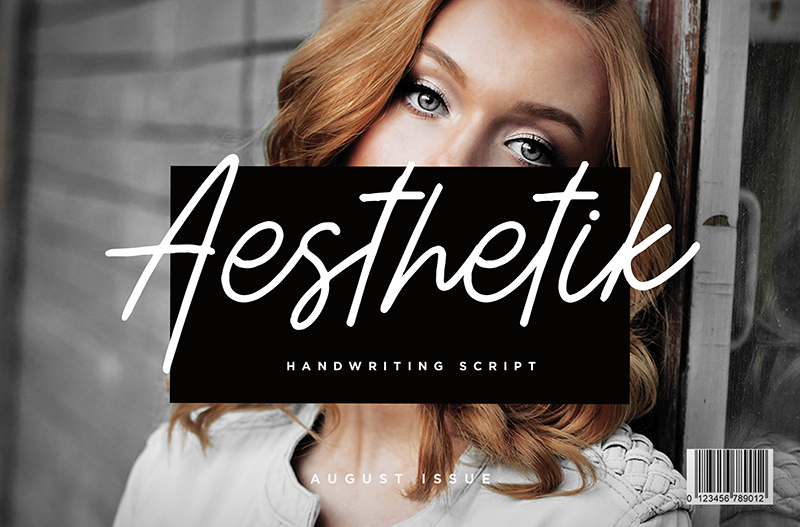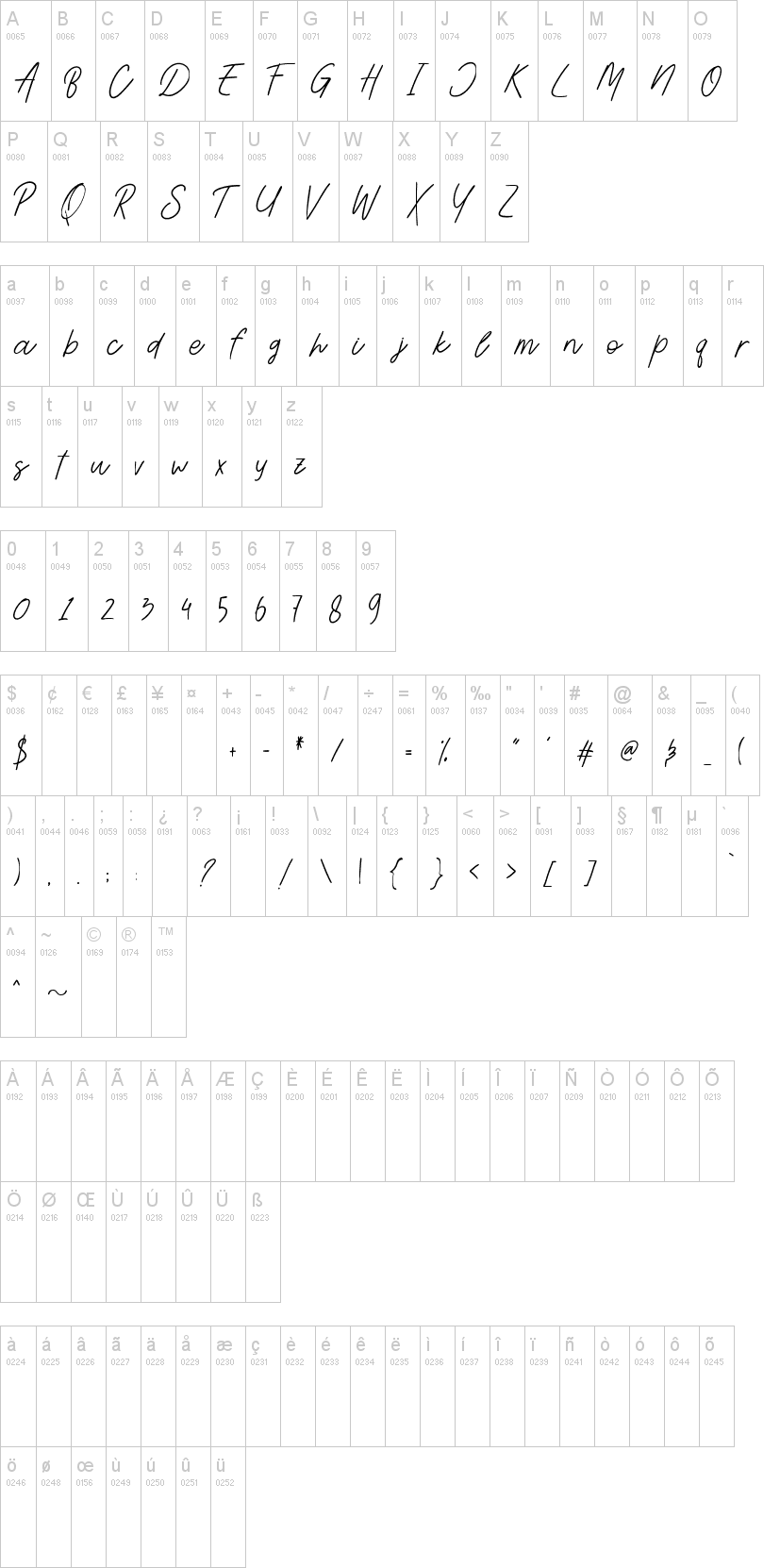
A handwriting font with monoline style. Aiming the easy usage for any kind of profession, it didn't need any special skill to use this font. So i can say that it will perfectly fit for any of your personal or commercial branding projects, or just an auto-chic for your stuff. That's what Aesthetik - Handwriting Font born from.